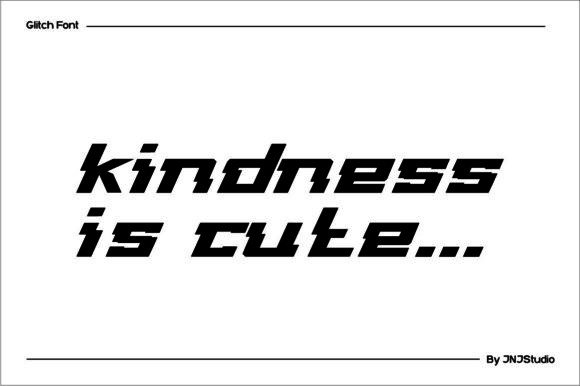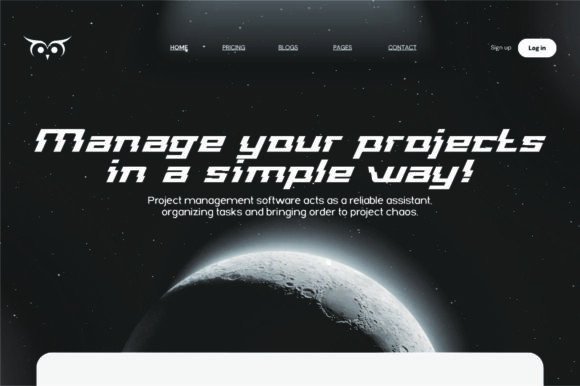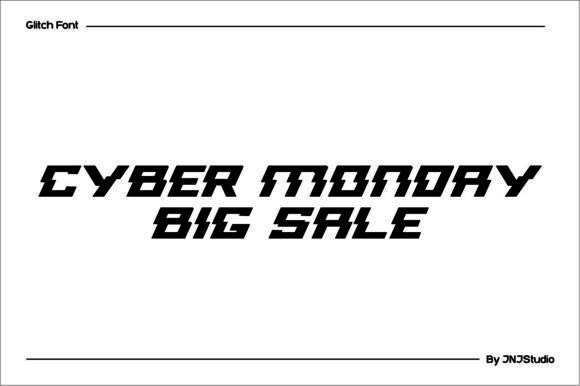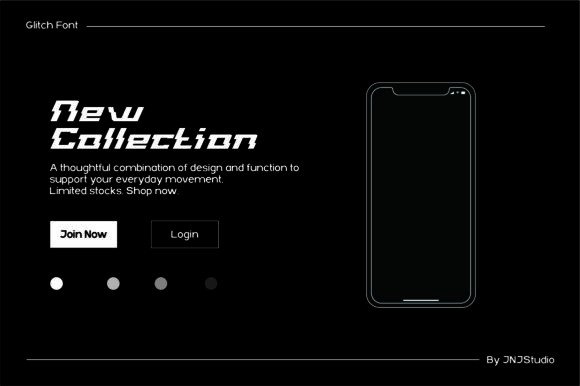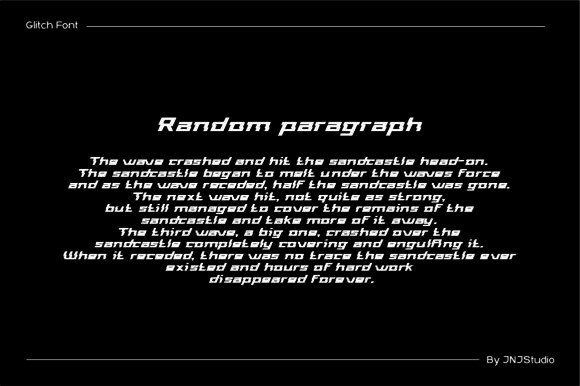
Introduction to Glitch Style Font
Introducing “Glitch Style” is a dynamic and futuristic italic typeface inspired by digital distortion, signal interference, and cyberpunk aesthetics.
| 📌 Product Name | Glitch Style Font |
| 👤 Author | JNJ studio |
With sharp slants, broken lines, and layered flicker effects, this font captures the essence of digital chaos and movement Perfect for titles, posters, tech interfaces, and experimental branding, Glitch Style gives your text a sense of urgency and digital rebellion.
Key Features of Glitch Style Font
Why Choose Glitch Style Font?
Glitch Style Font offers exceptional quality and versatility, making it a valuable addition to your design toolkit. Whether you’re creating for personal projects or commercial use, Glitch Style Font delivers professional results.